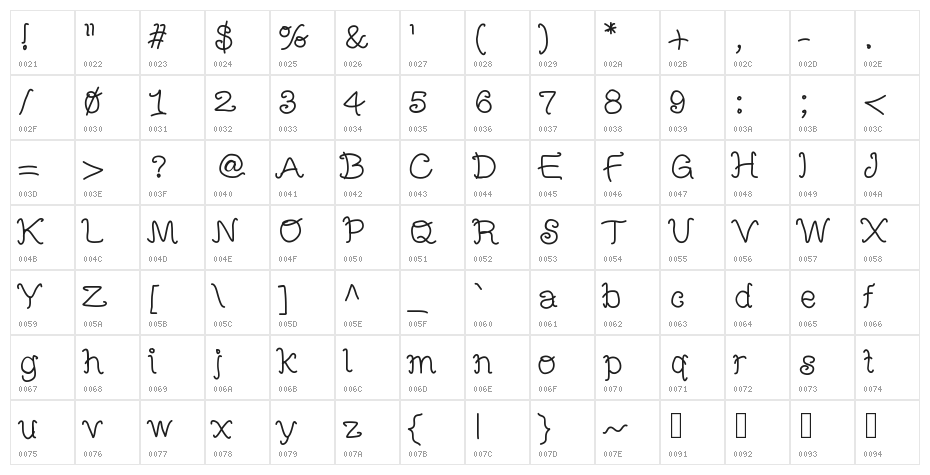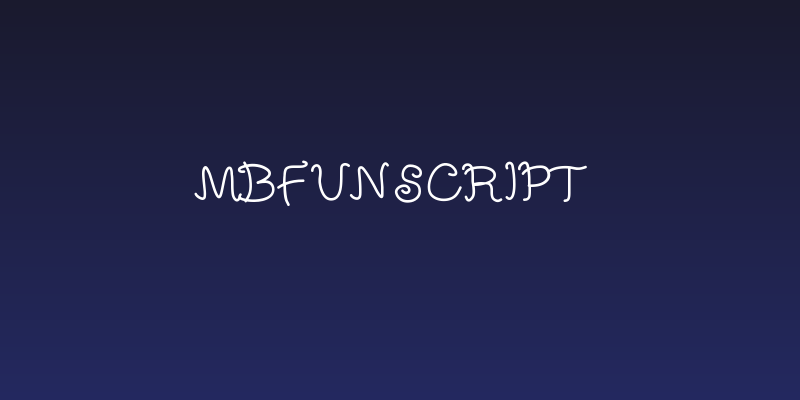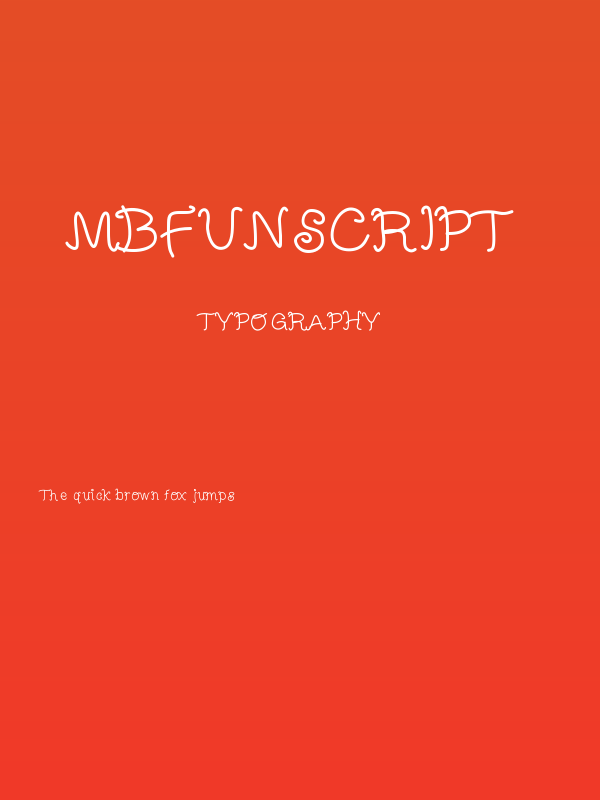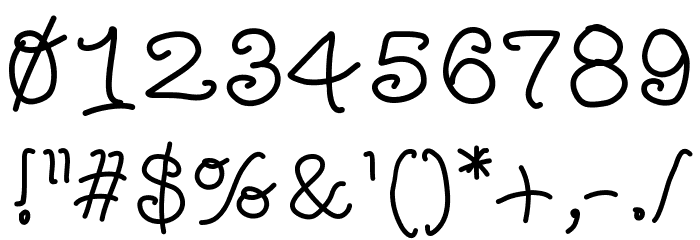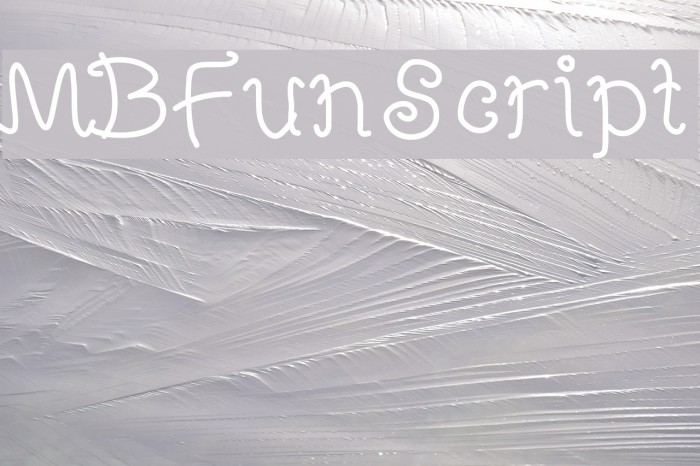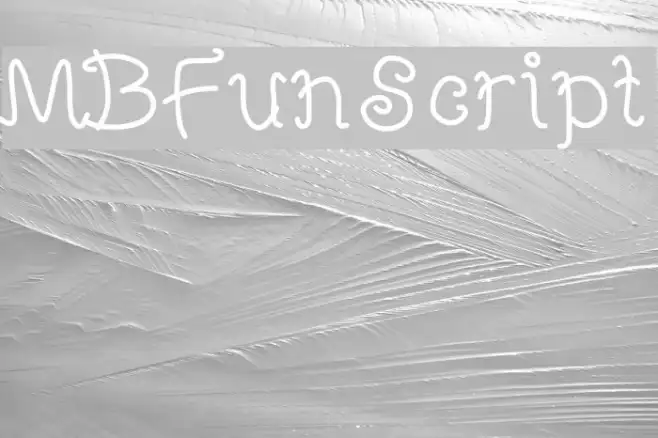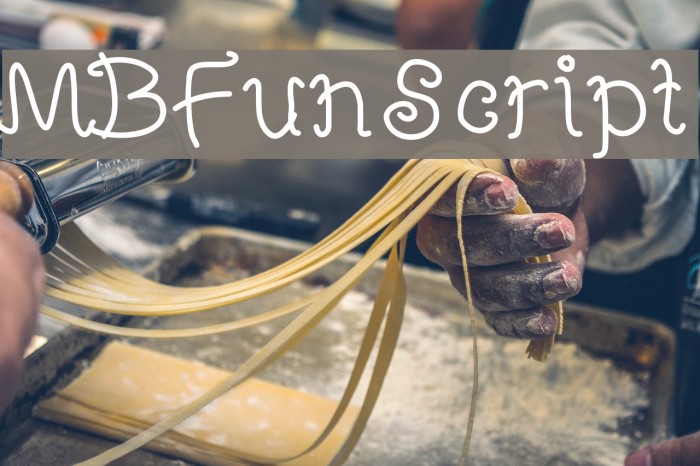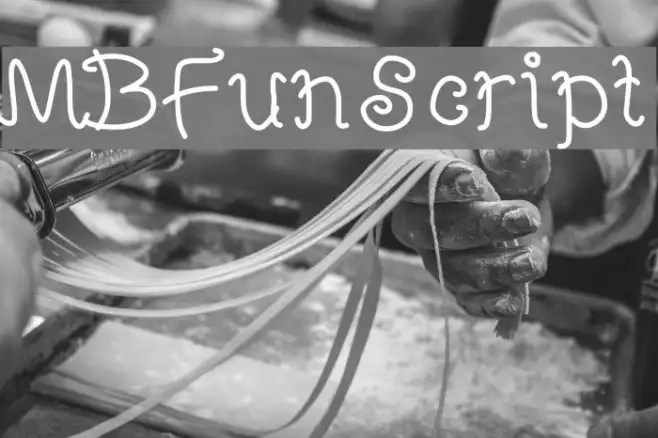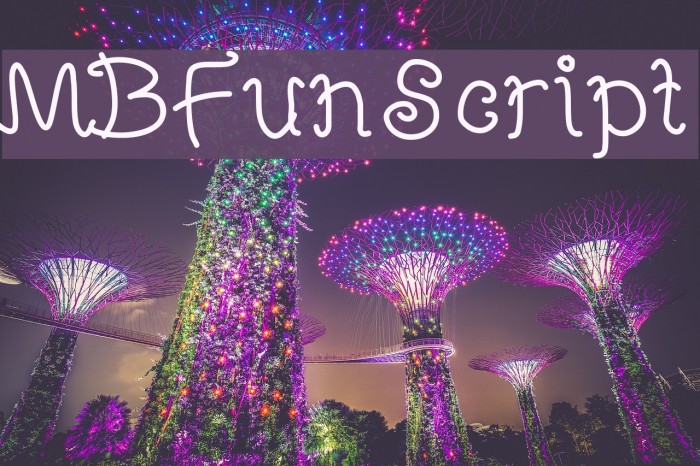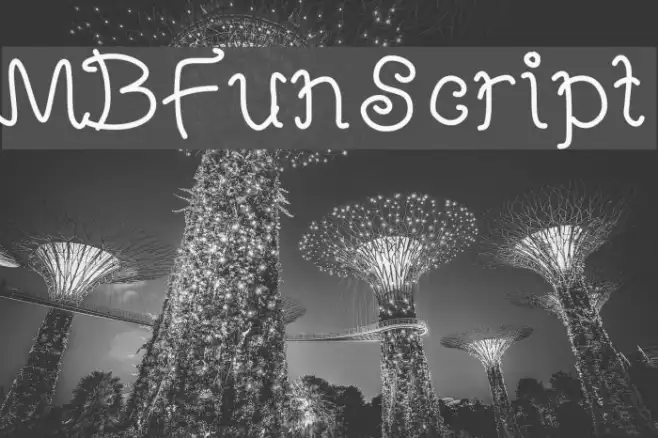
MBFunScript Font
MBFunScript Description
This font features a playful and whimsical style, characterized by its curly and looping letterforms. Each character has a unique, hand-drawn appearance, adding a sense of fun and creativity. The strokes are consistent in width, giving it a uniform look despite the decorative elements. The uppercase letters maintain a balanced height, while the lowercase letters exhibit a slight bounce, enhancing the casual feel. Numerals and special characters are designed to match the overall playful aesthetic, making it suitable for projects that require a touch of personality and charm.
| Proposed Projects | Ideal for children's books, greeting cards, playful branding, and creative posters. |